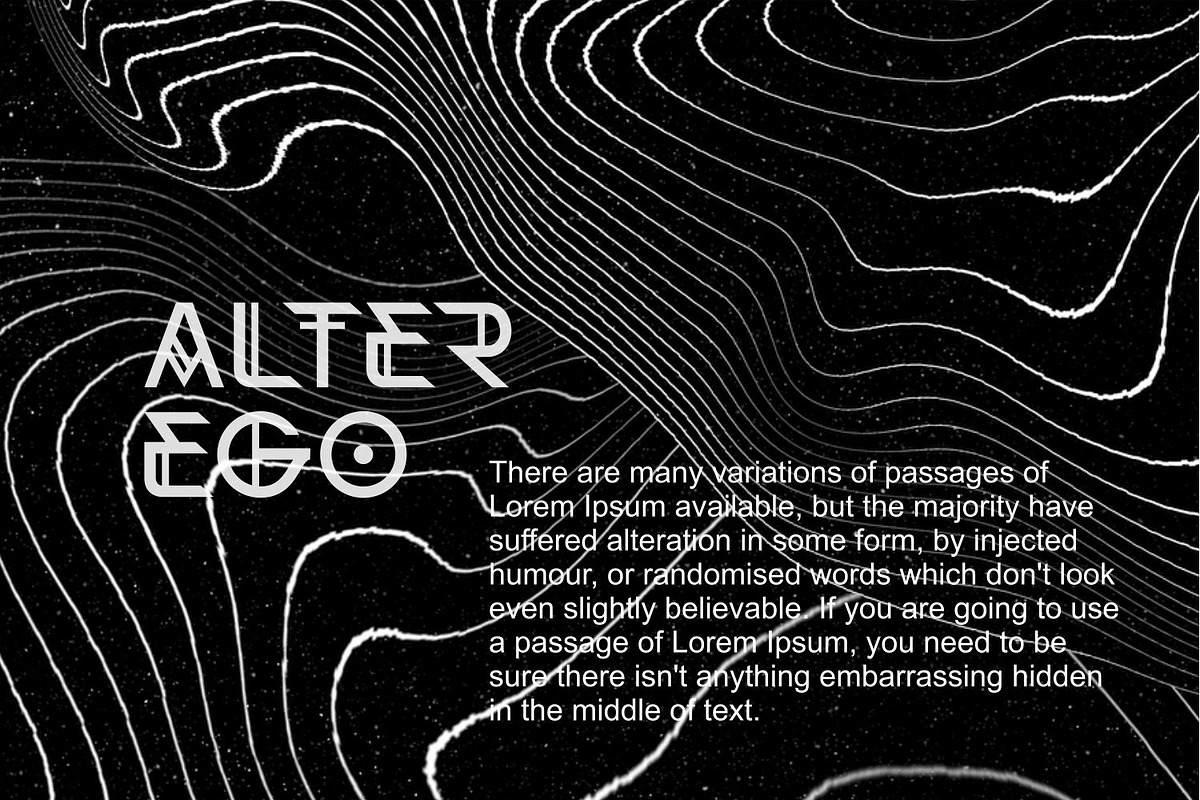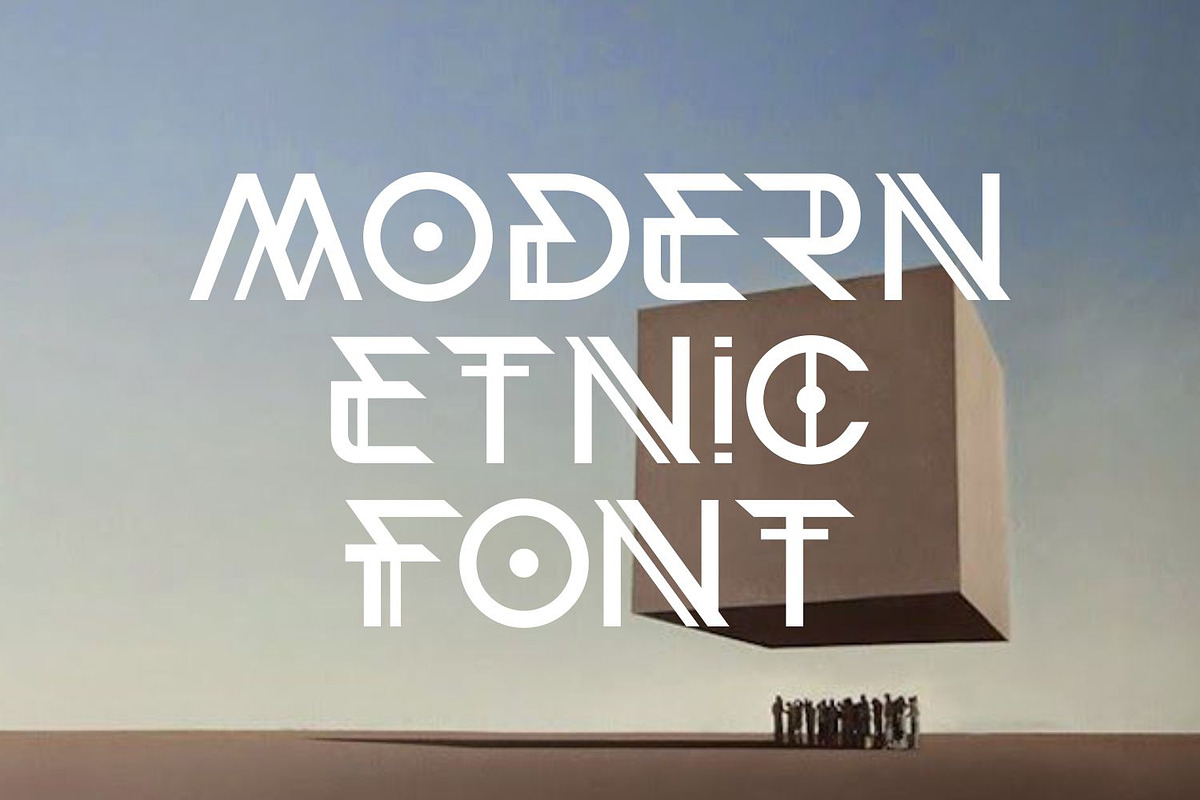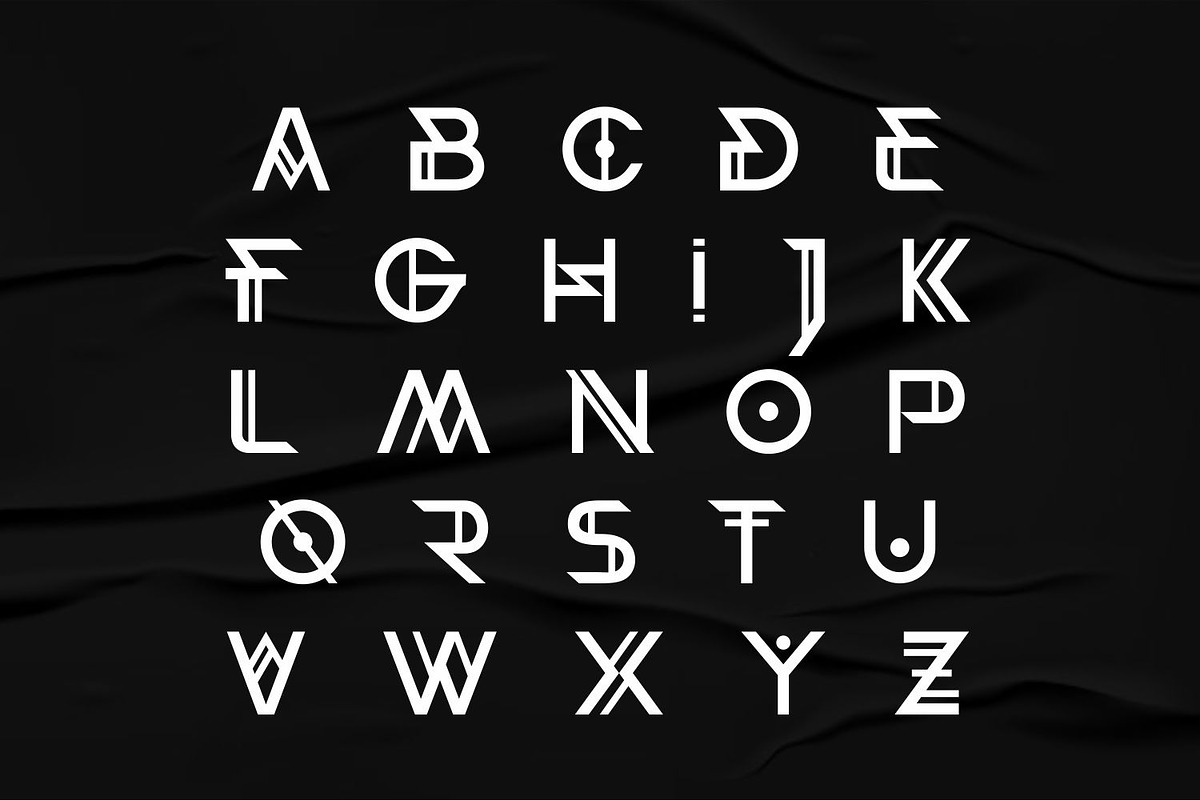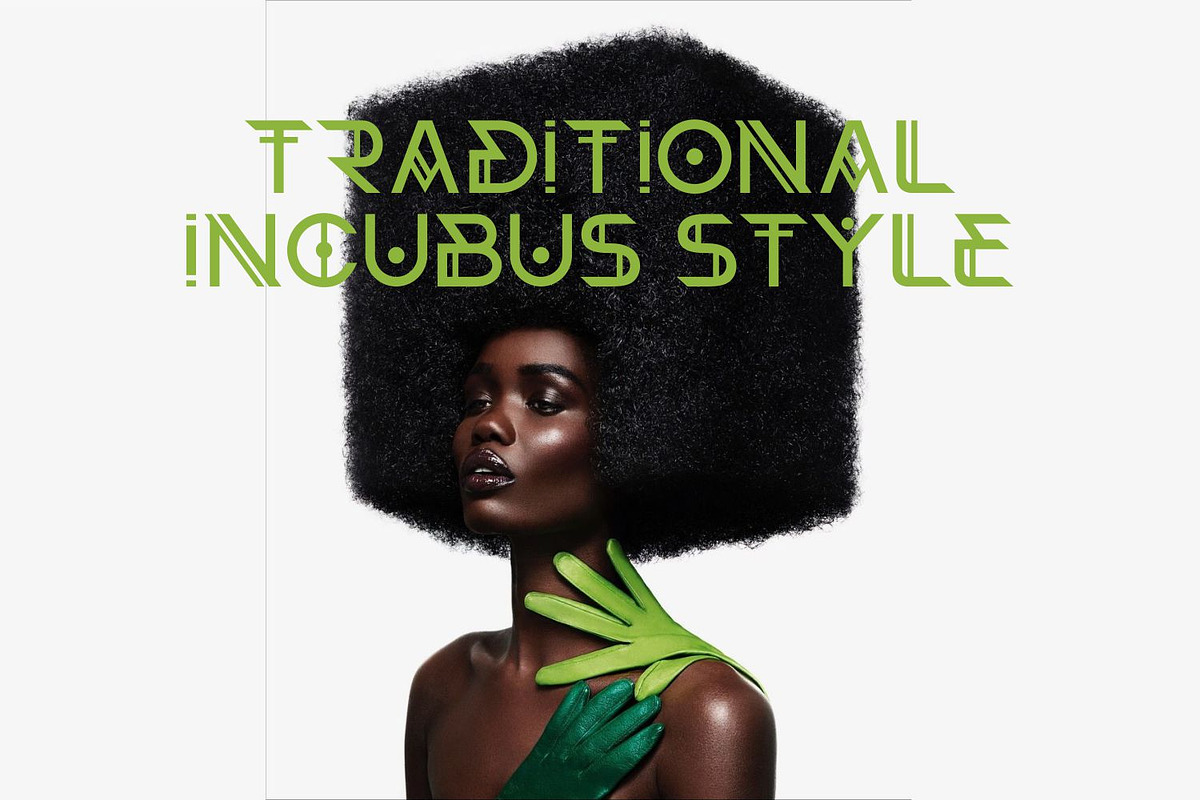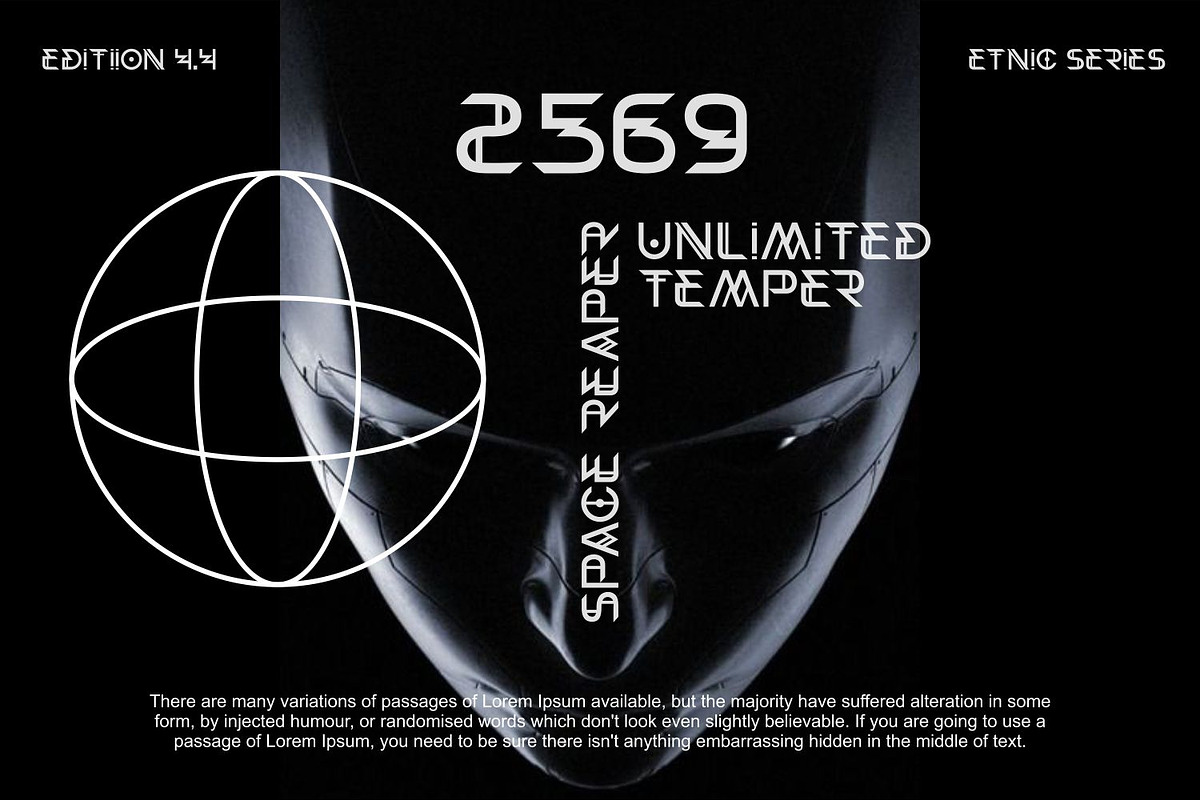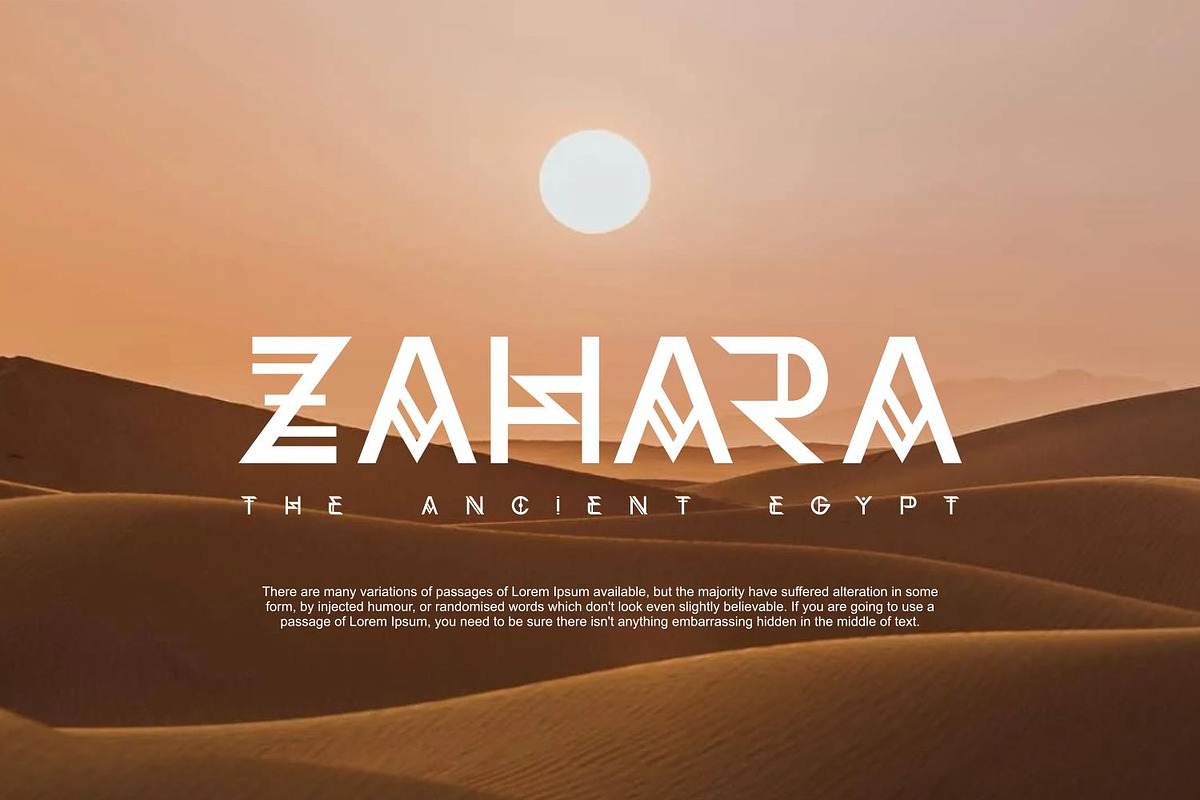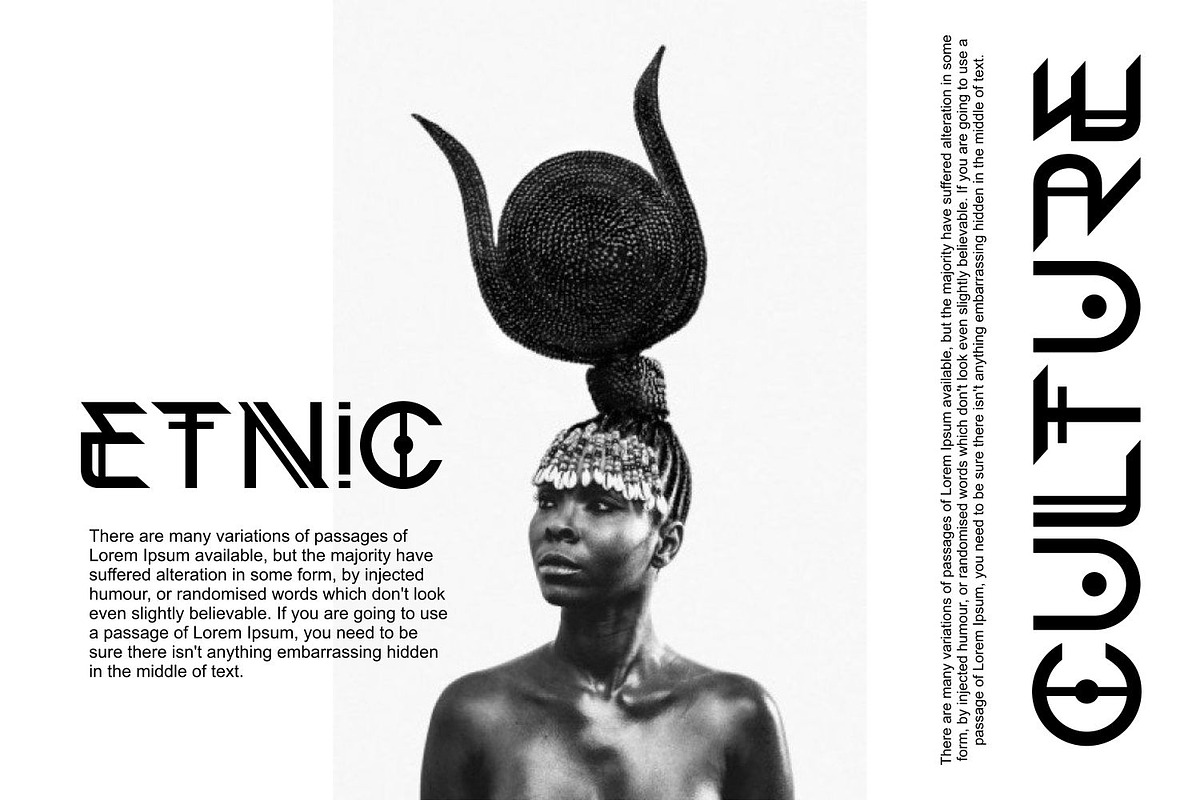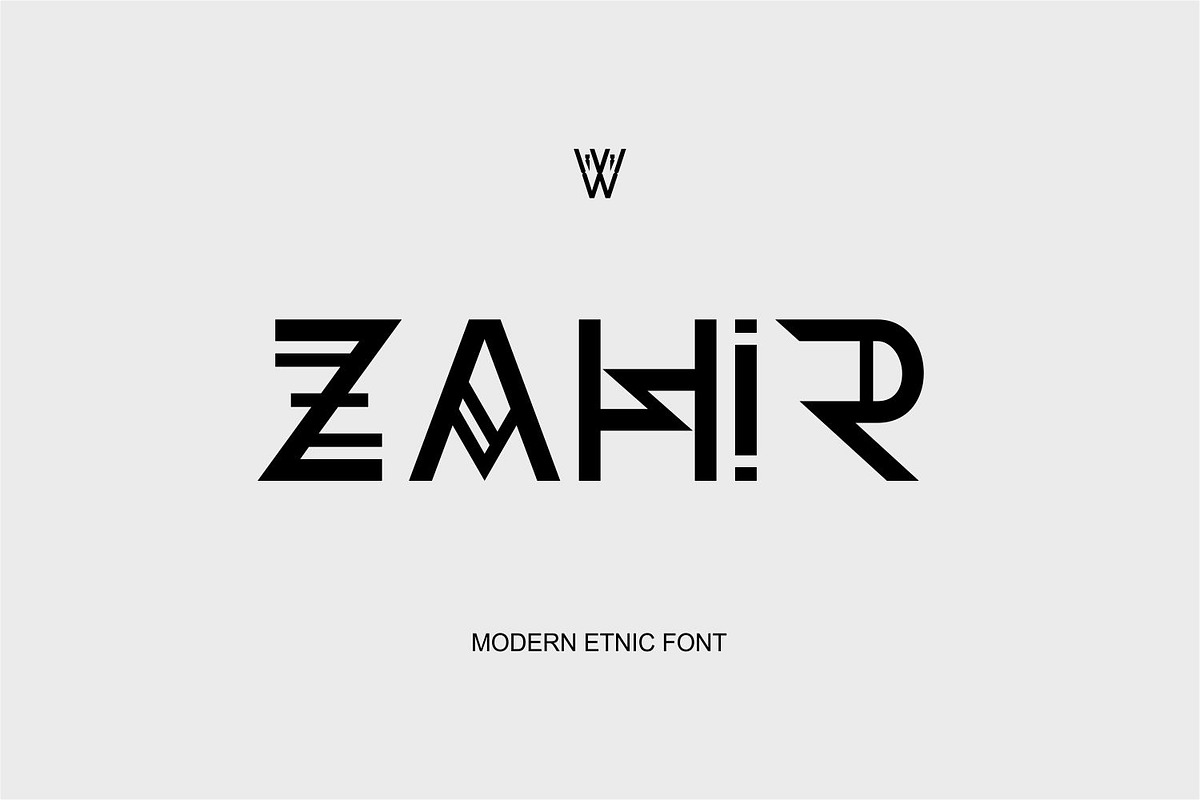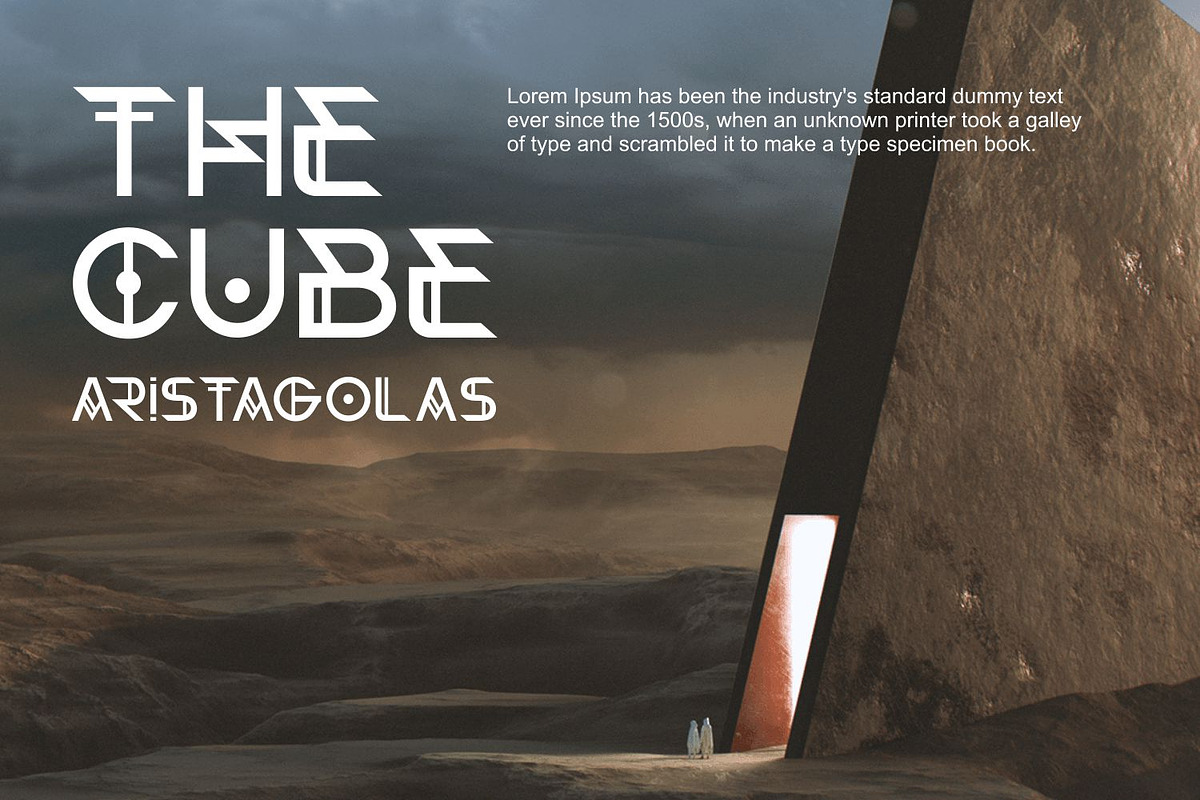
Zahir Font | Etnic Display Font
The Zahir Font is a captivating ethnic typeface that pays homage to cultural diversity and heritage with its intricate designs and unique flourishes. Inspired by traditional ethnic motifs and patterns, this font features elaborate letterforms that exude a sense of history and craftsmanship. Whether you’re creating designs for cultural events, artisanal products, or ethnic-themed branding, the Zahir Font adds a touch of authenticity and richness that captivates the viewer. Its intricate details and cultural significance make it perfect for celebrating diversity and heritage in your designs.